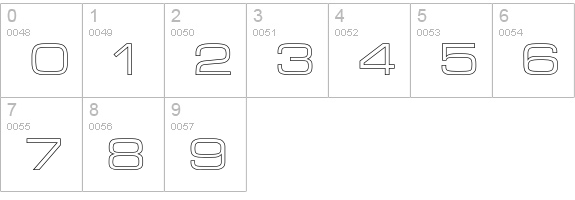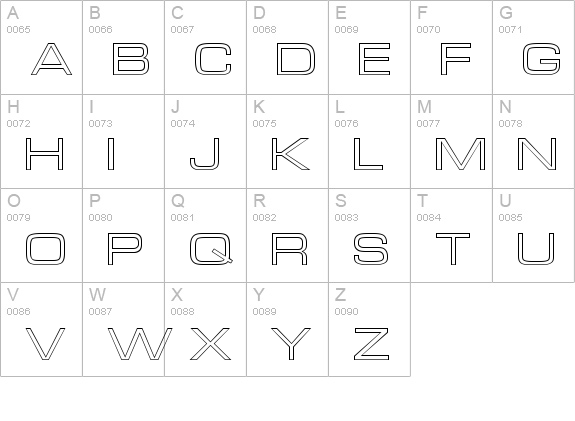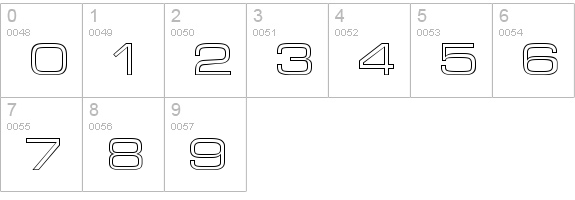
MicroTechnicExtOutline Font Details
MicroTechnicExtOutline is a sleek and modern font that adds a touch of sophistication to any design project. With its clean lines and futuristic aesthetic, this font is perfect for technology-related content, branding, and digital applications. The outline style adds a unique and eye-catching element to the overall look, making it stand out from the crowd. The best part? MicroTechnicExtOutline is completely free to download at FontsMarket.com, allowing you to access this versatile font without any cost. Whether you're working on a website, logo, or marketing materials, this font is sure to elevate your design and leave a lasting impression. Download MicroTechnicExtOutline today and discover the endless possibilities it offers for your creative projects.